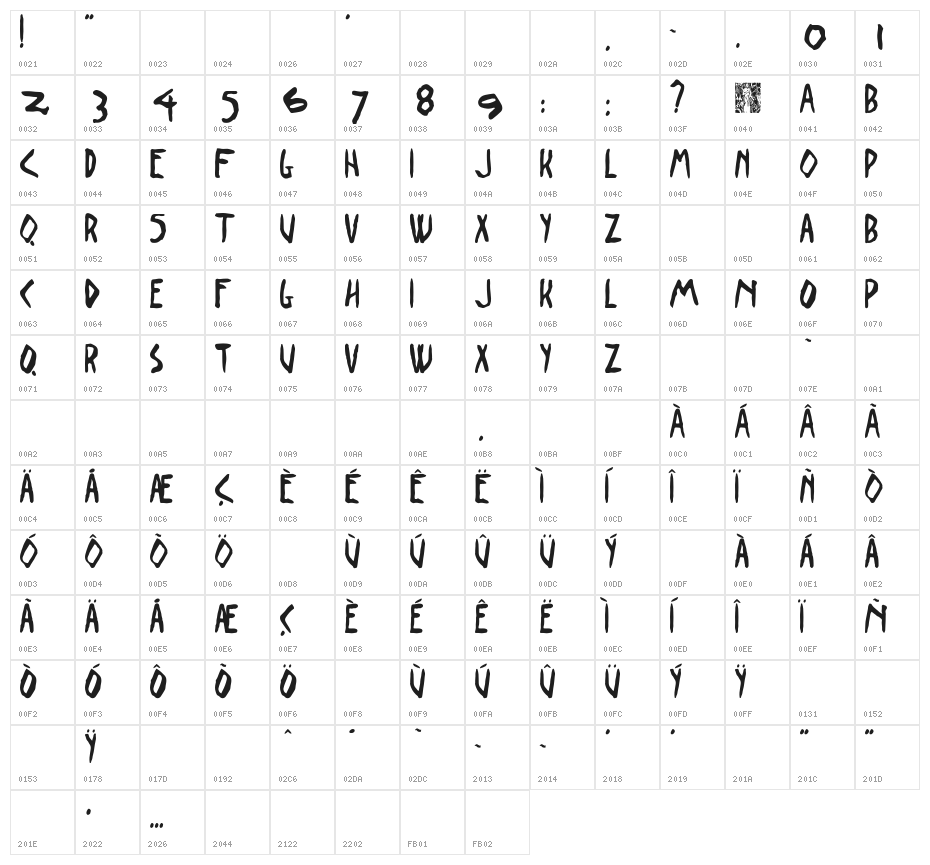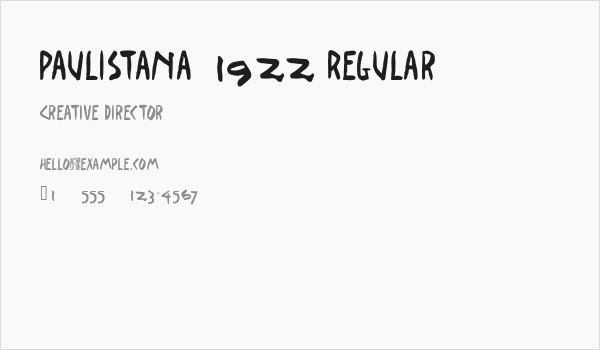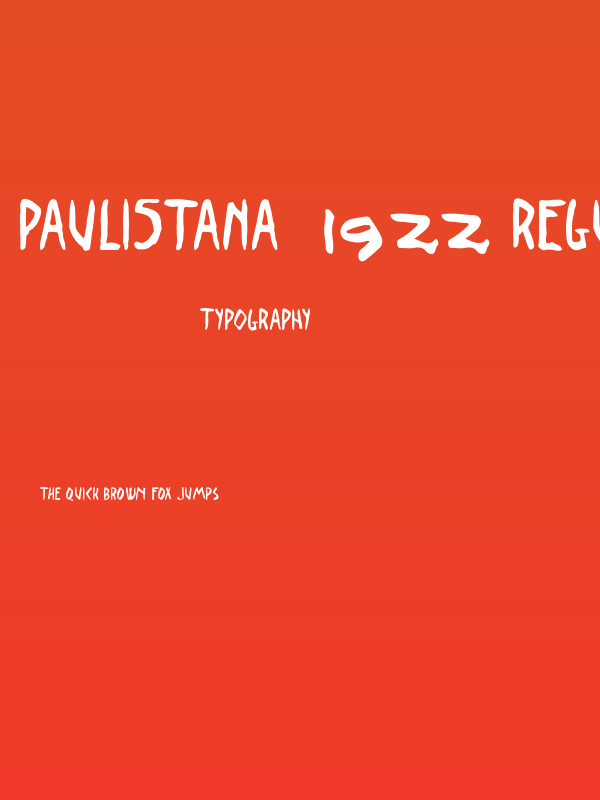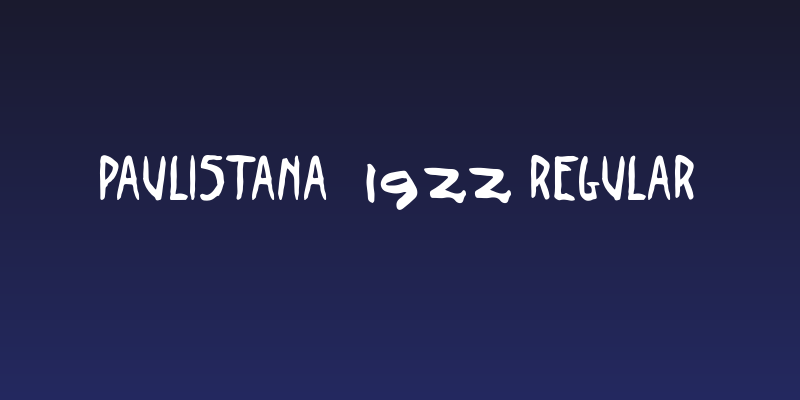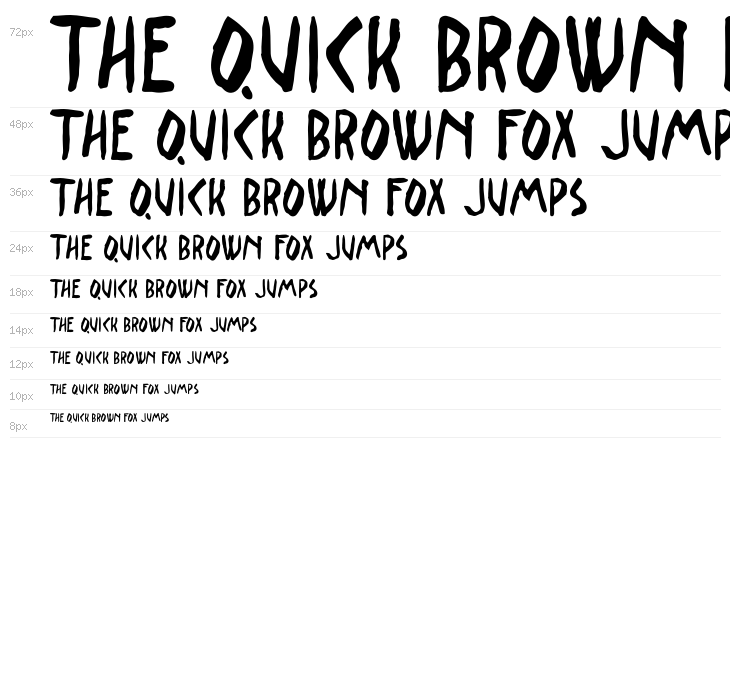
Paulistana 1922 Regular Font
Paulistana 1922 Regular Description
This font features a bold and expressive style with a hand-drawn appearance. The characters are irregular and dynamic, giving it a lively and artistic feel. The strokes are thick and uneven, which adds to its unique charm. The uppercase and lowercase letters maintain a consistent style, while the numerals and special characters complement the overall design. This font is ideal for projects that require a personal touch or a creative flair, such as posters, invitations, or branding materials.
| Proposed Projects | Ideal for creative projects like posters, invitations, and branding materials. |